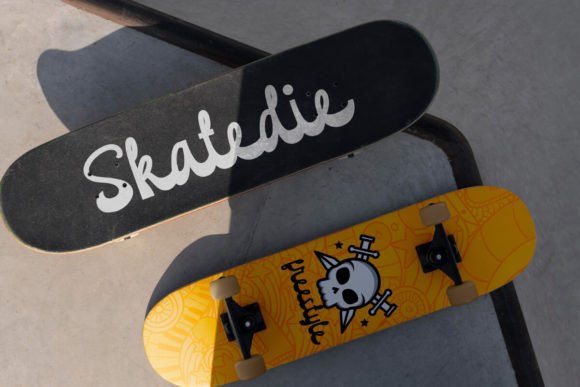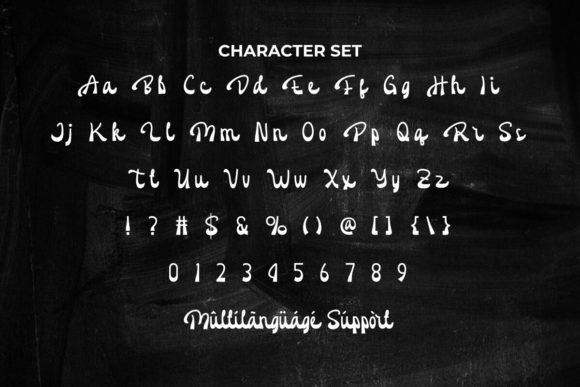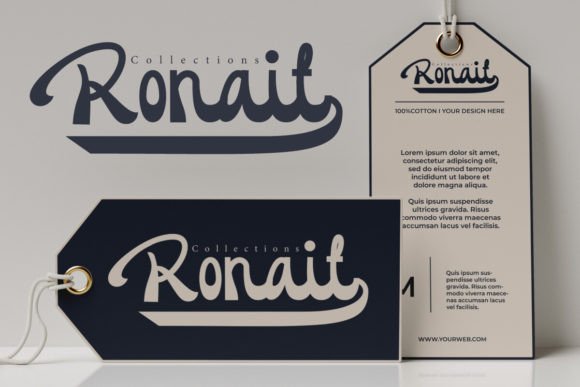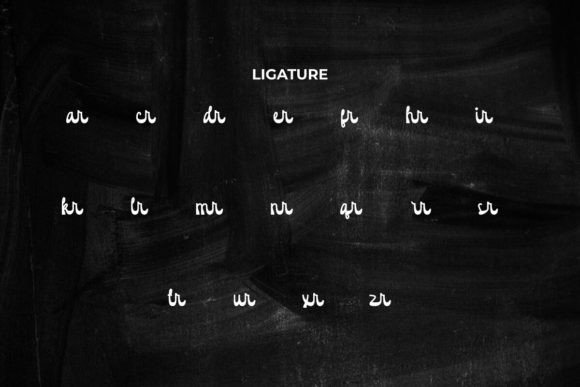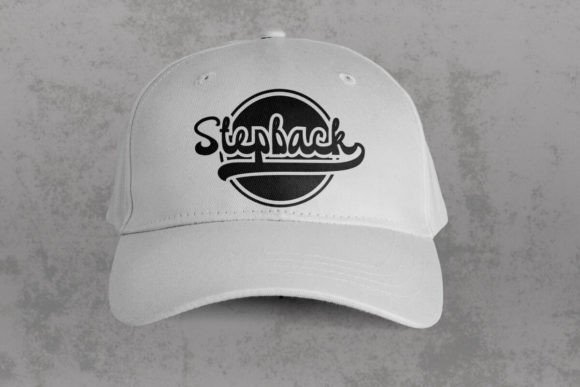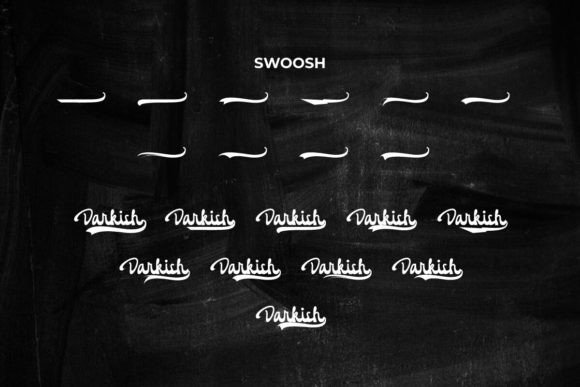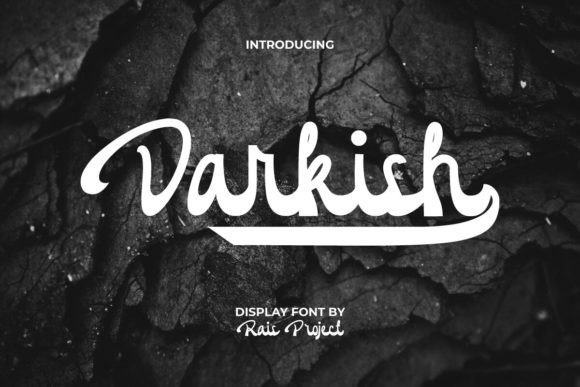
Introducing Darkish Font: A Bold Brush Script for Modern Vintage Designs
Are you a designer or crafter looking for a unique and versatile font to elevate your creative projects? Look no further than Darkish Font, a bold brush script font that’s perfect for adding a touch of modern vintage style to your designs. In this article, we’ll explore the features and benefits of Darkish Font, and show you how it can be used in a variety of applications.
What is Darkish Font?
Darkish Font is a bold brush script font that’s inspired by the classic brush scripts of the past, but with a modern twist. Its unique blend of vintage charm and contemporary style makes it perfect for designers and crafters who want to add a touch of sophistication to their work. With its bold and expressive strokes, Darkish Font is sure to make a statement in any design.
Key Features of Darkish Font
- Bold and expressive strokes: Darkish Font features bold and expressive strokes that give it a dynamic and energetic feel.
- Modern vintage style: Darkish Font’s modern vintage style makes it perfect for designers and crafters who want to add a touch of nostalgia to their work.
- Versatile: Darkish Font can be used in a wide range of applications, from brochures and posters to custom designs and product packaging.
- Easily readable: Despite its bold strokes, Darkish Font is easily readable, making it perfect for use in titles, headings, and other display text.
Uses for Darkish Font
Darkish Font is an incredibly versatile font that can be used in a wide range of applications, including:
- Brochures: Add a touch of sophistication to your brochures with Darkish Font’s bold and expressive strokes.
- Posters: Create eye-catching posters with Darkish Font’s bold and attention-grabbing style.
- Custom designs: Use Darkish Font to add a personal touch to your custom designs, from wedding invitations to business cards.
- Product packaging: Add a touch of modern vintage style to your product packaging with Darkish Font.
- Invitations: Create beautiful and elegant invitations with Darkish Font’s flowing script.
- Labels: Use Darkish Font to create eye-catching labels for your products or promotions.
- Signage: Create bold and attention-grabbing signage with Darkish Font.
- Stickers: Use Darkish Font to create fun and colorful stickers for your products or promotions.
- Websites: Add a touch of sophistication to your website with Darkish Font’s modern vintage style.
Why Choose Darkish Font?
So why choose Darkish Font for your design projects? Here are just a few reasons:
- Unique style: Darkish Font’s modern vintage style is sure to set your designs apart from the crowd.
- Versatility: Darkish Font can be used in a wide range of applications, making it a great addition to any designer’s toolkit.
- Easily readable: Despite its bold strokes, Darkish Font is easily readable, making it perfect for use in titles, headings, and other display text.
- High-quality: Darkish Font is a high-quality font that’s designed to deliver exceptional results in any design.
In conclusion, Darkish Font is a bold brush script font that’s perfect for designers and crafters who want to add a touch of modern vintage style to their creative projects. With its unique blend of vintage charm and contemporary style, Darkish Font is sure to make a statement in any design. Whether you’re creating brochures, posters, custom designs, or product packaging, Darkish Font is a great choice for any design project.